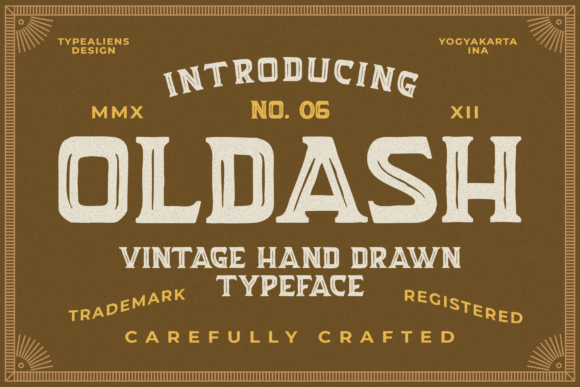
Behold! Brace yourself for the introduction of Oldash Font, a remarkable display serif font, meticulously crafted by the artistic hands at Typealiens. Prepare to be mesmerized by its audacious personality, a bold all-caps font that exudes vintage charm and a rebellious spirit, perfect for injecting a touch of nostalgia into your designs.
Dive into the world of typography and unleash your creativity with Oldash. Its unique style, reminiscent of classic motorcycle and vintage aesthetics, is guaranteed to make a statement. Experience the thrill of designing with a font that oozes character and authenticity. Let Oldash transport you back in time, evoking the golden age of typography, where every letter held a story.
Oldash is not just another font; it's a portal to a world where bold headlines dance across the page with poise and confidence. Its sturdy serifs, inspired by the past, lend a timeless elegance to your designs. Ideal for capturing attention in headlines, logos, posters, and short texts, Oldash demands attention and leaves a lasting impression.
With Oldash as your typographic weapon, conquer the world of visual communication. Its steadfast presence in headlines ensures that your message cuts through the noise and reaches your audience with undeniable impact. Experience the power of a font that speaks volumes, commanding attention and igniting emotions.
Make a pact with Oldash today and unlock a world of typographic possibilities. Its bold, all-caps design is a breath of fresh air, promising to transform your designs into captivating visual masterpieces. Whether you're a seasoned designer or just starting your journey, the indomitable spirit of Oldash will inspire you to create designs that resonate with your audience.